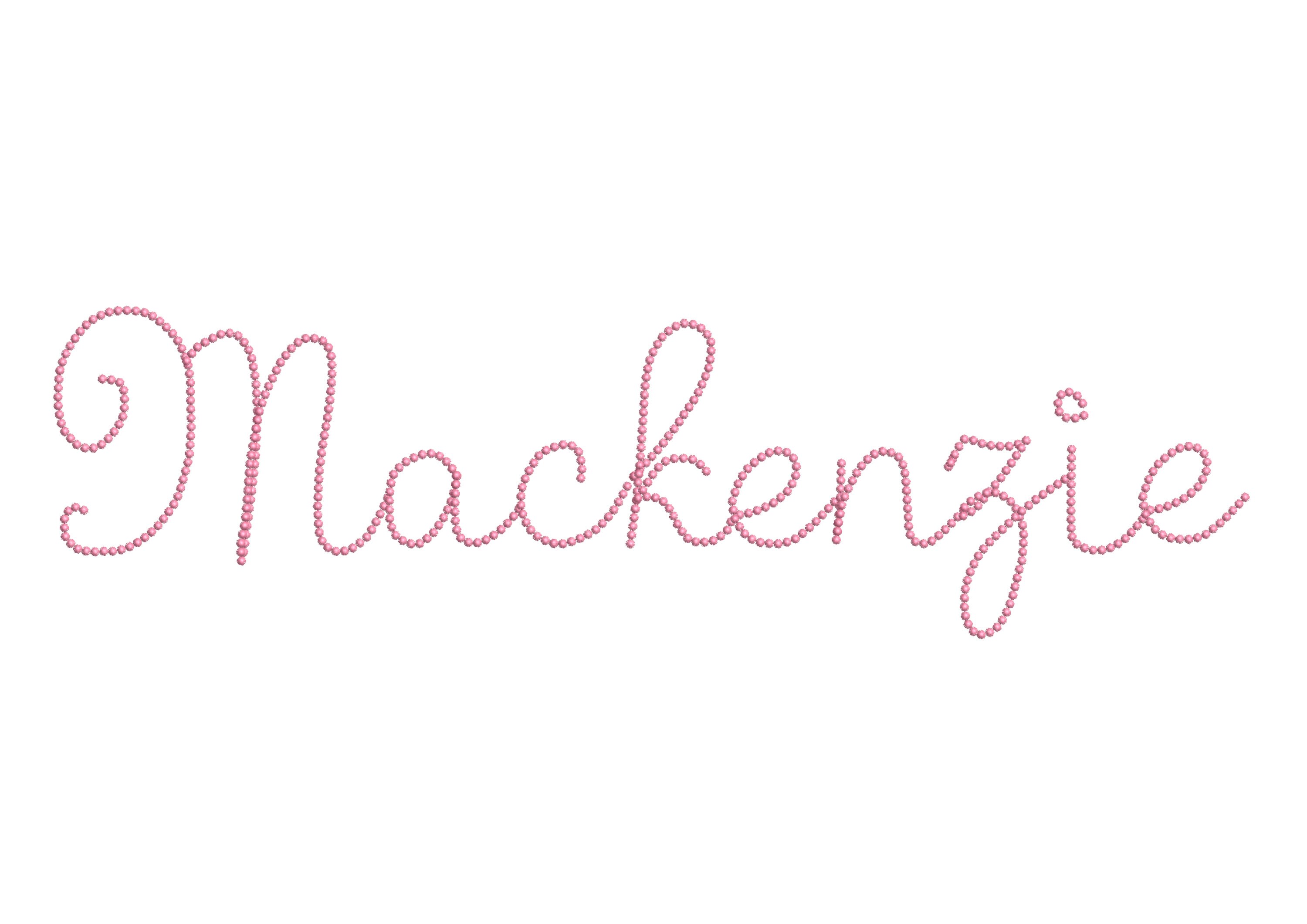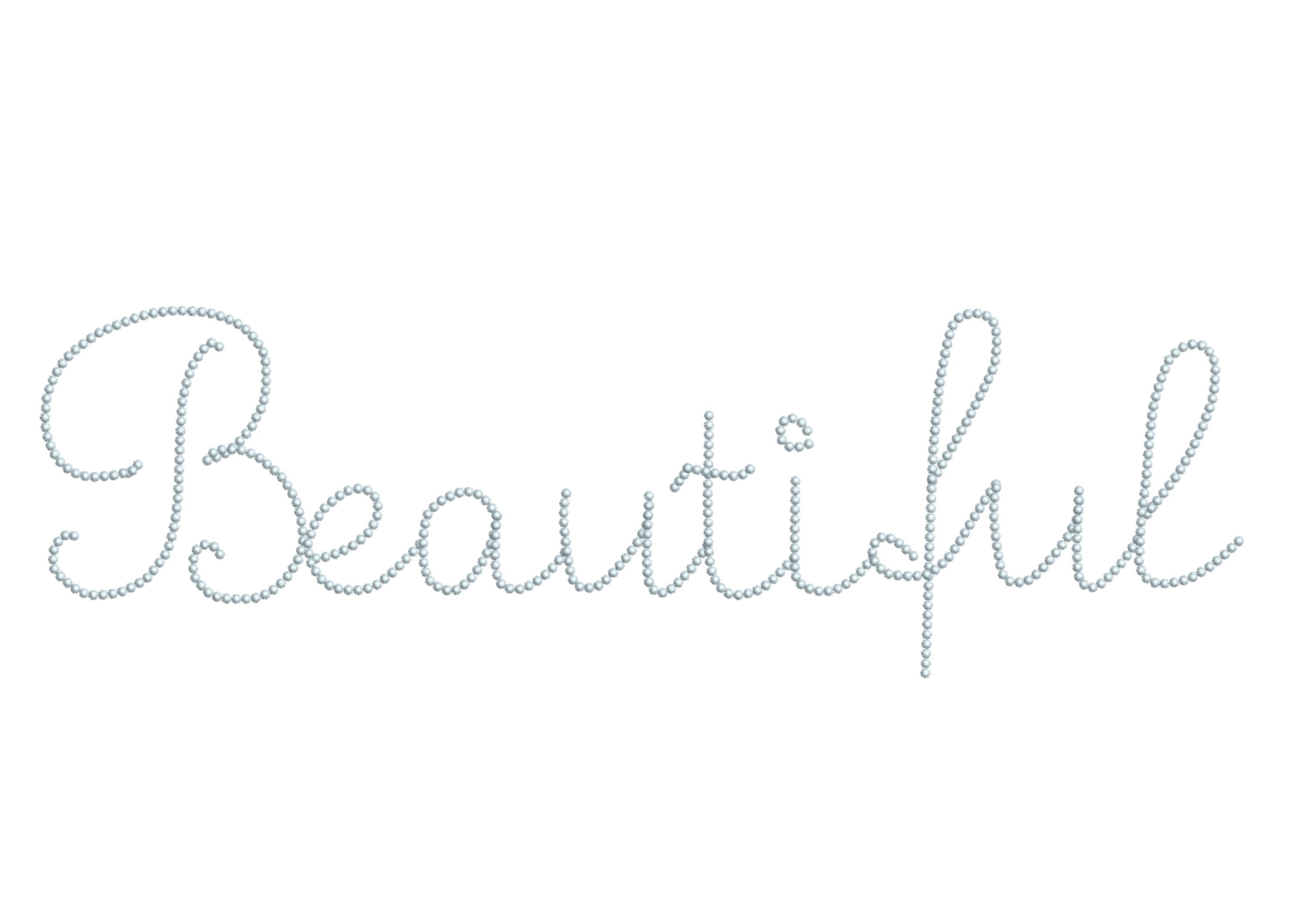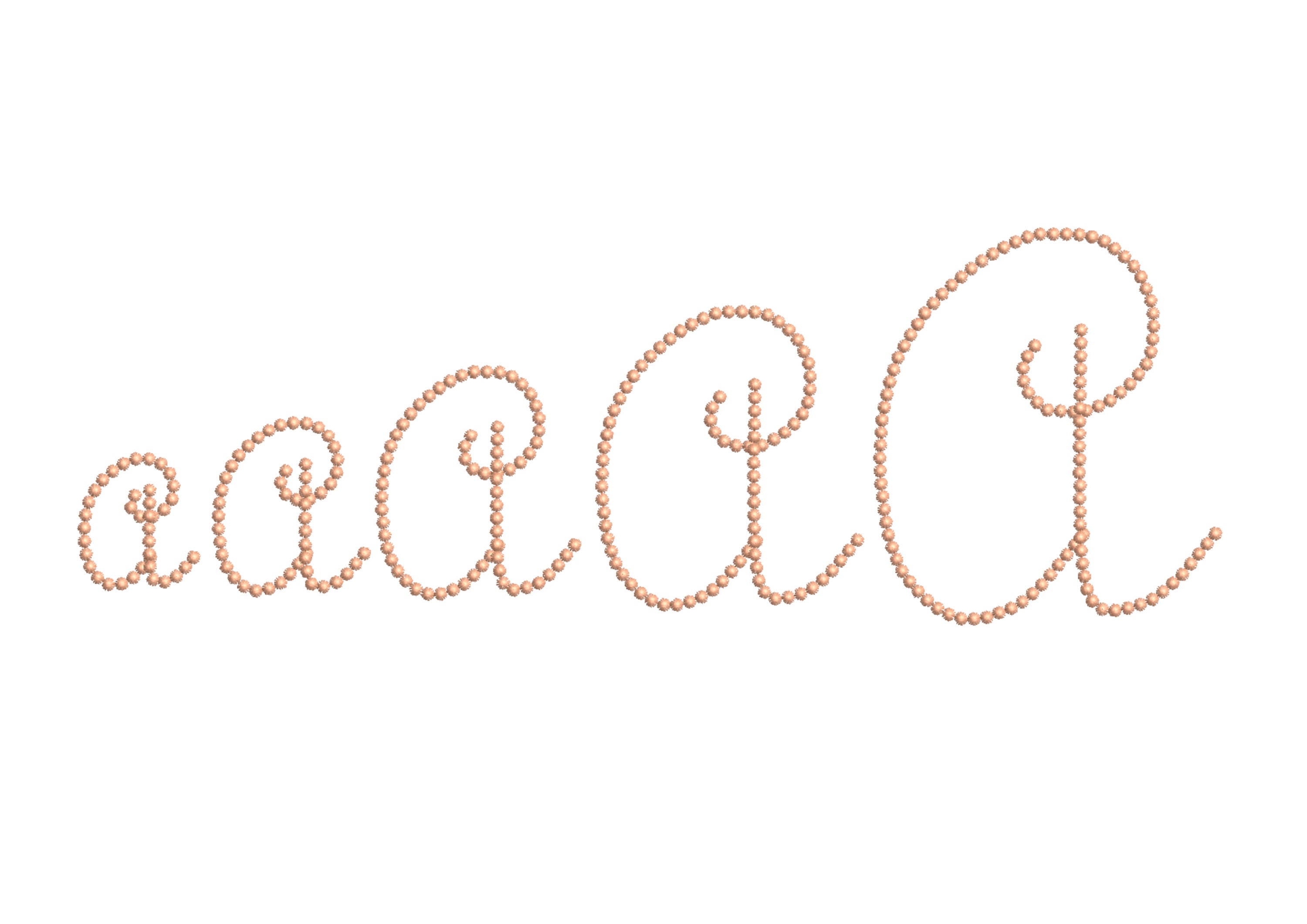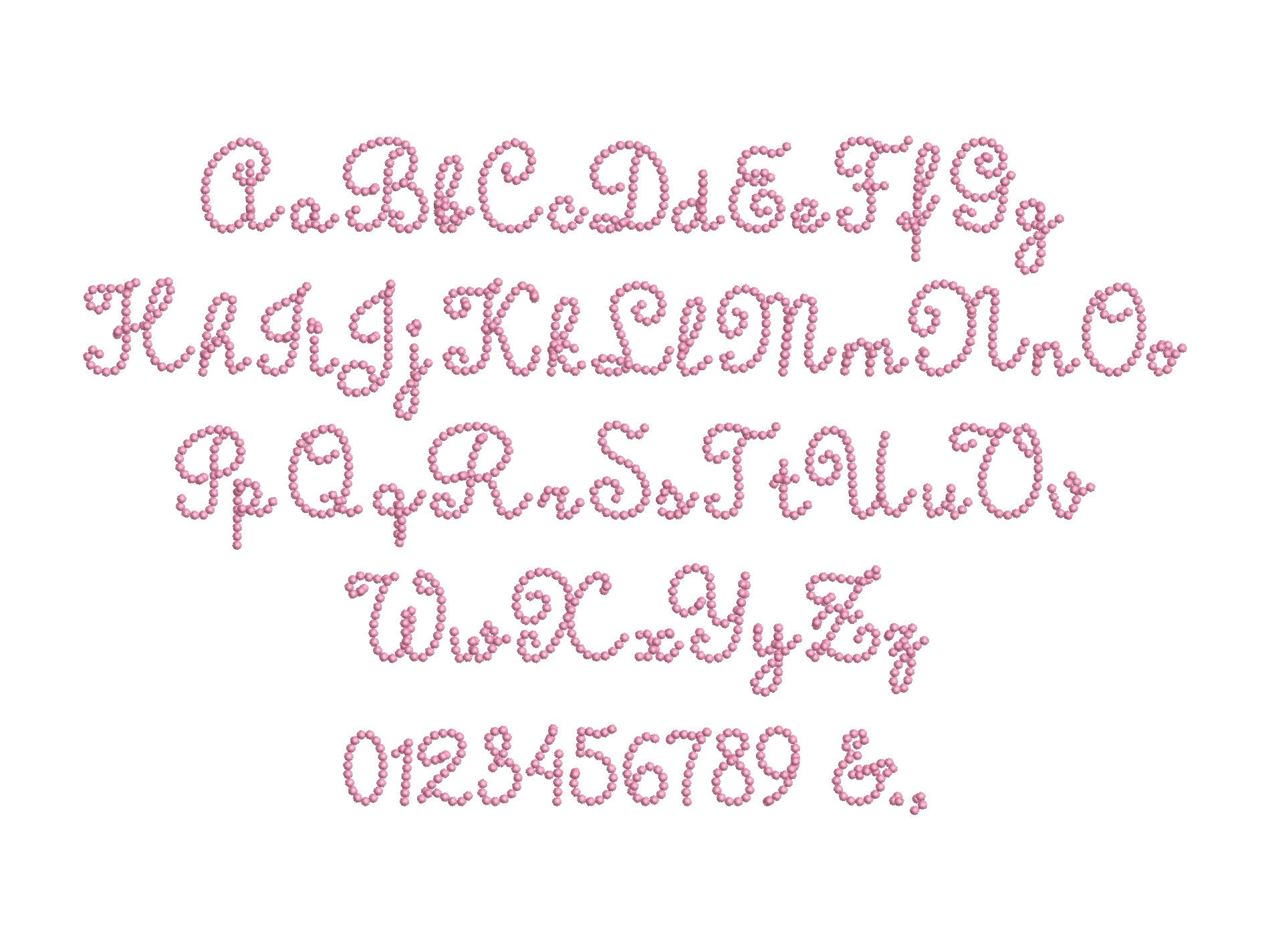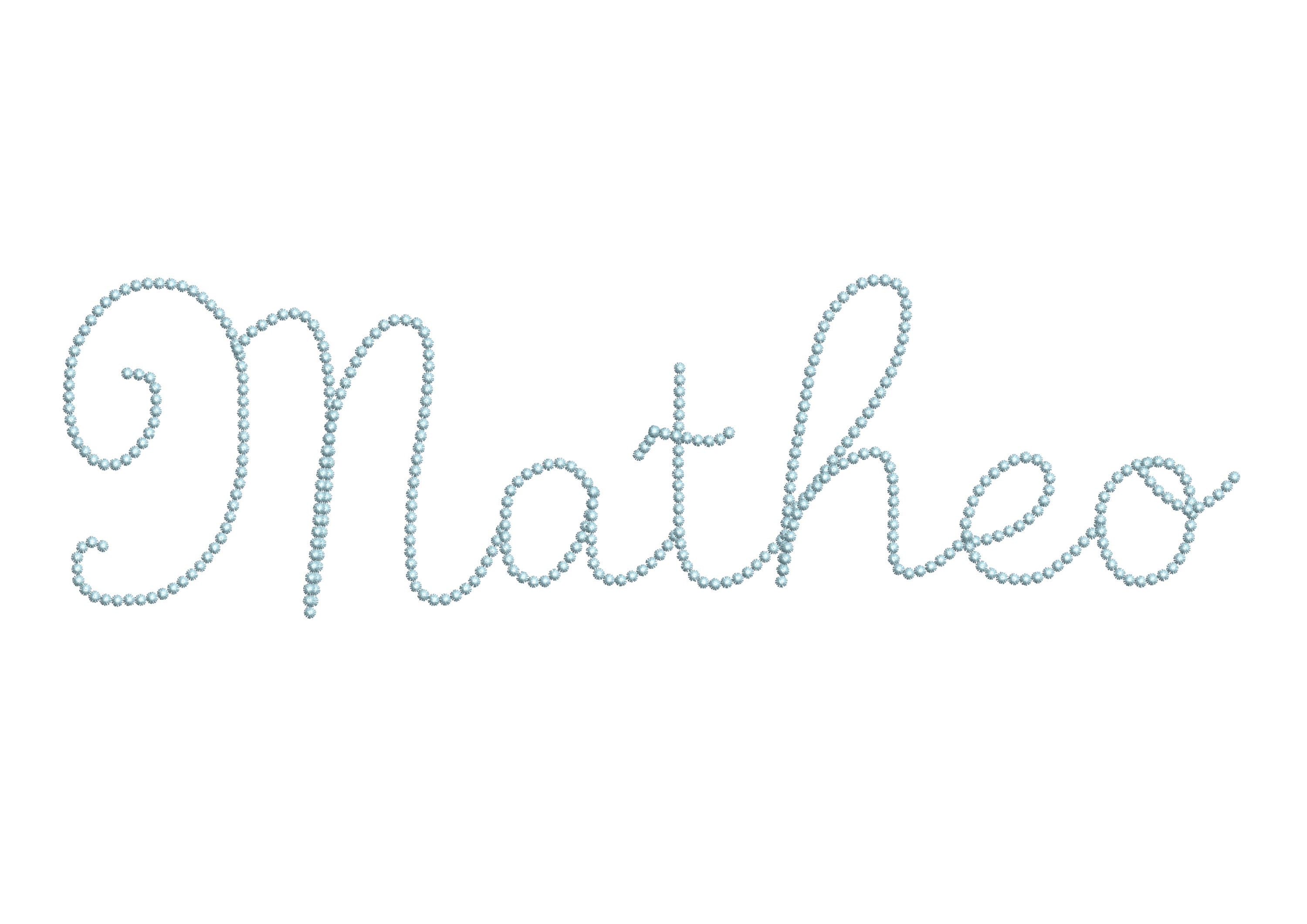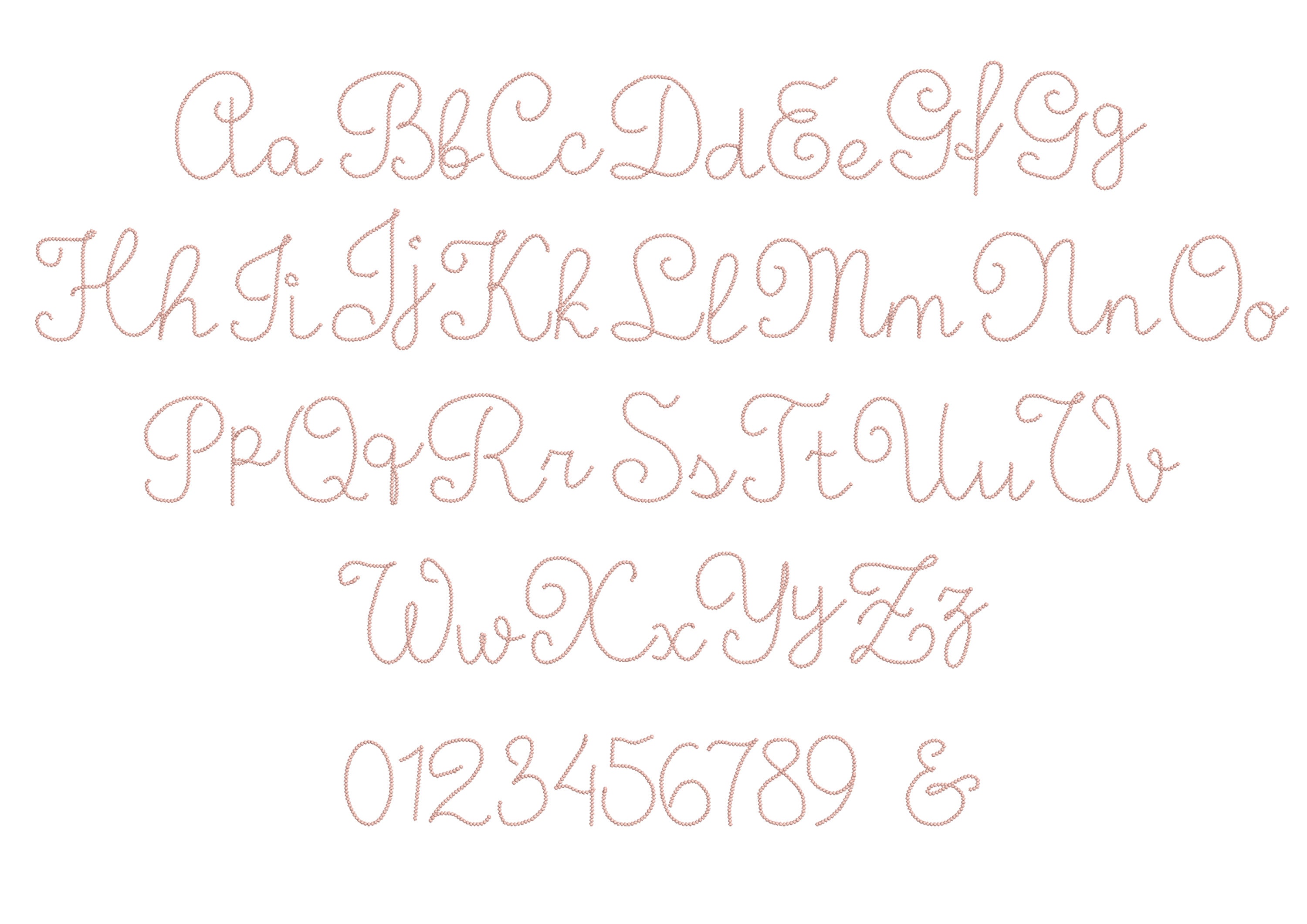
Pearl stitch script handwritten FONT Divine girls Alphabet machine embroidery designs sizes 1.7 up to 4.8 inches curl Monogram BX
Entire alphabet uppercase and lowercase letters, numbers, and punctuation.